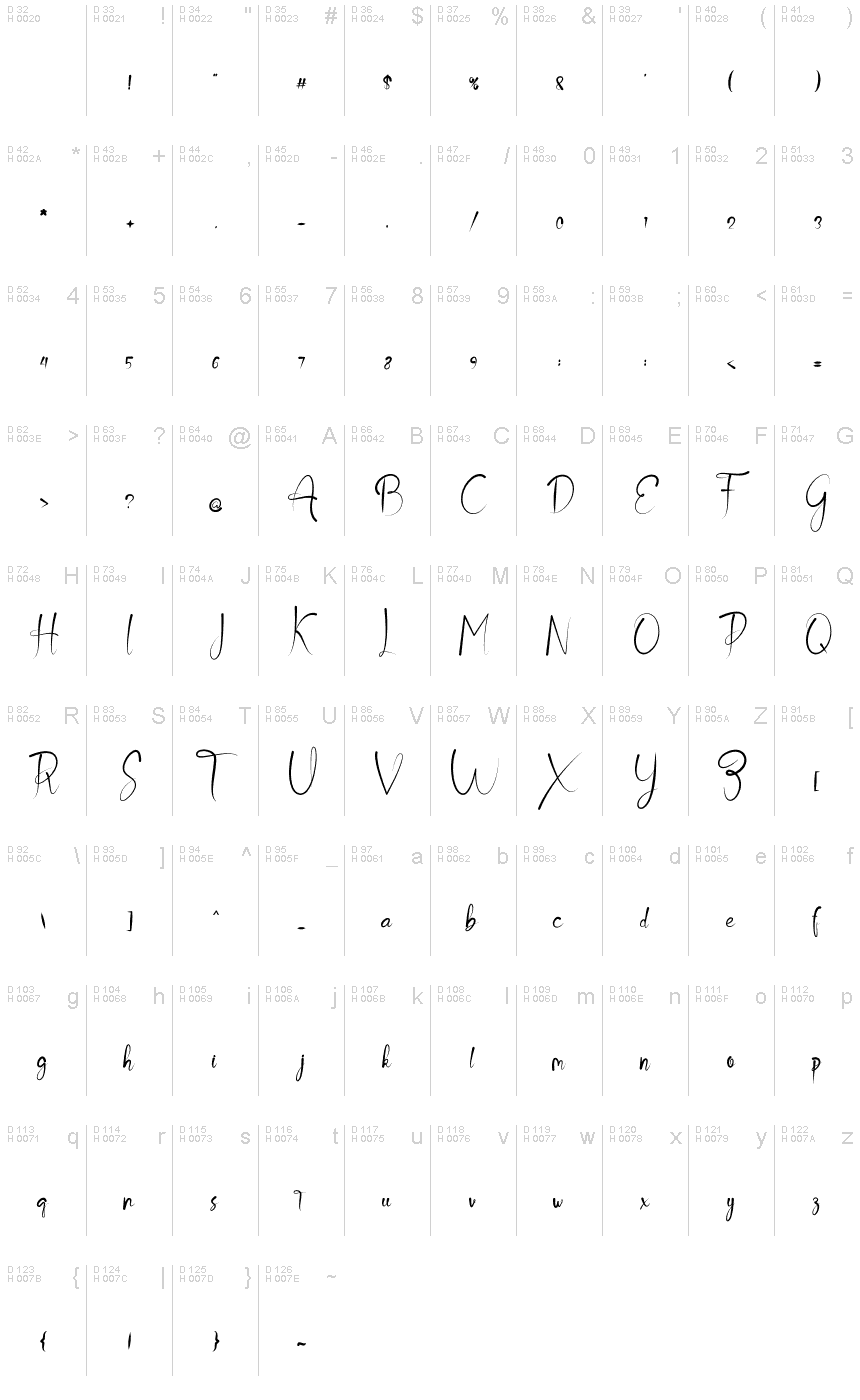
Ollivitess
Ollivitess, created by Fahmi Hayat, is a light handwritten font that exudes creativity and personality. Its elegant curves and flowing strokes make it perfect for projects that require a touch of sophistication or playfulness. Whether it's designing invitations, logos, or social media graphics, Ollivitess adds a unique charm to any project. With its delicate weight and versatile style, this font is suitable for anything from feminine branding to whimsical children's book illustrations. Let Ollivitess elevate your designs with its effortless beauty.